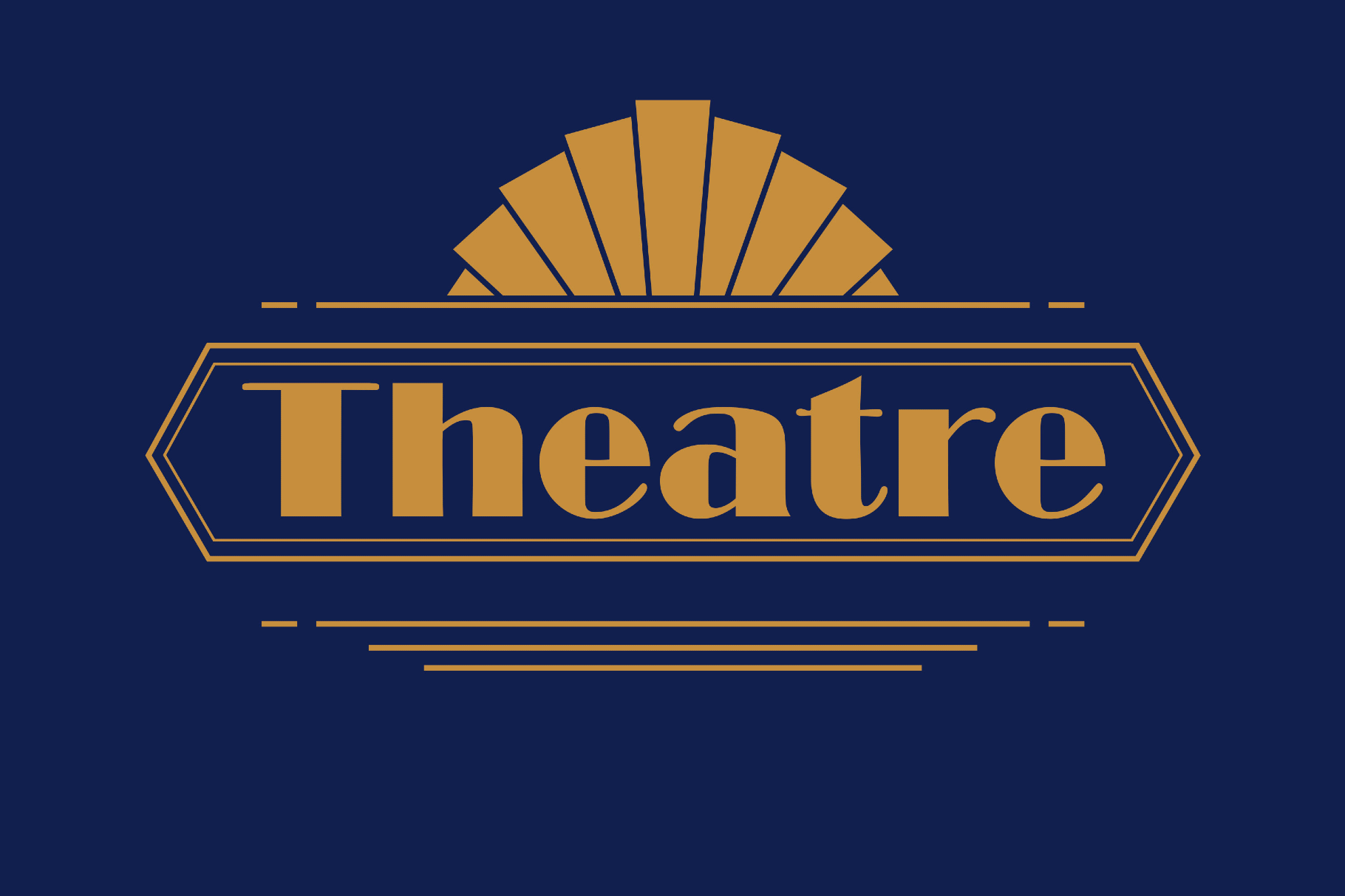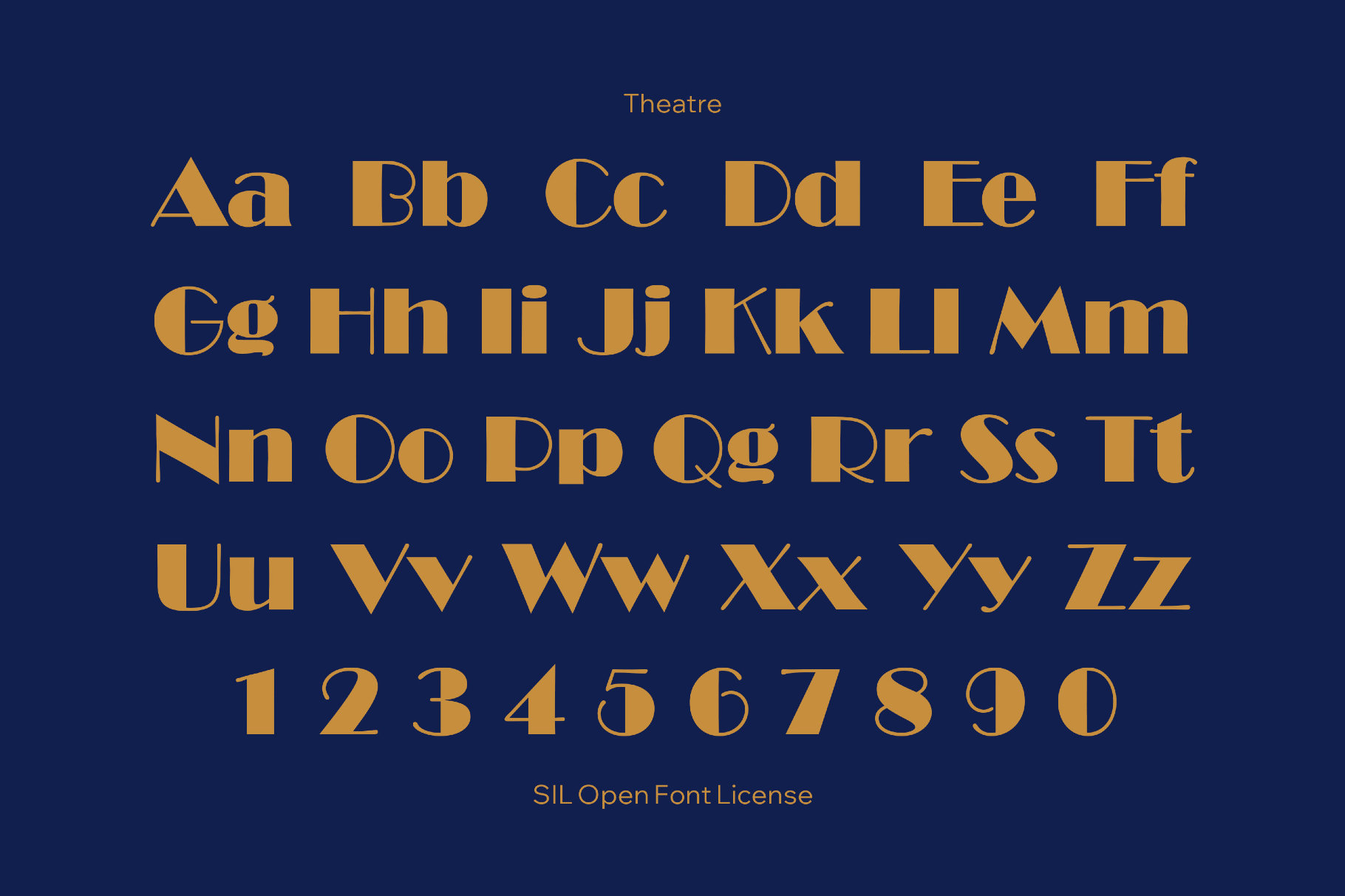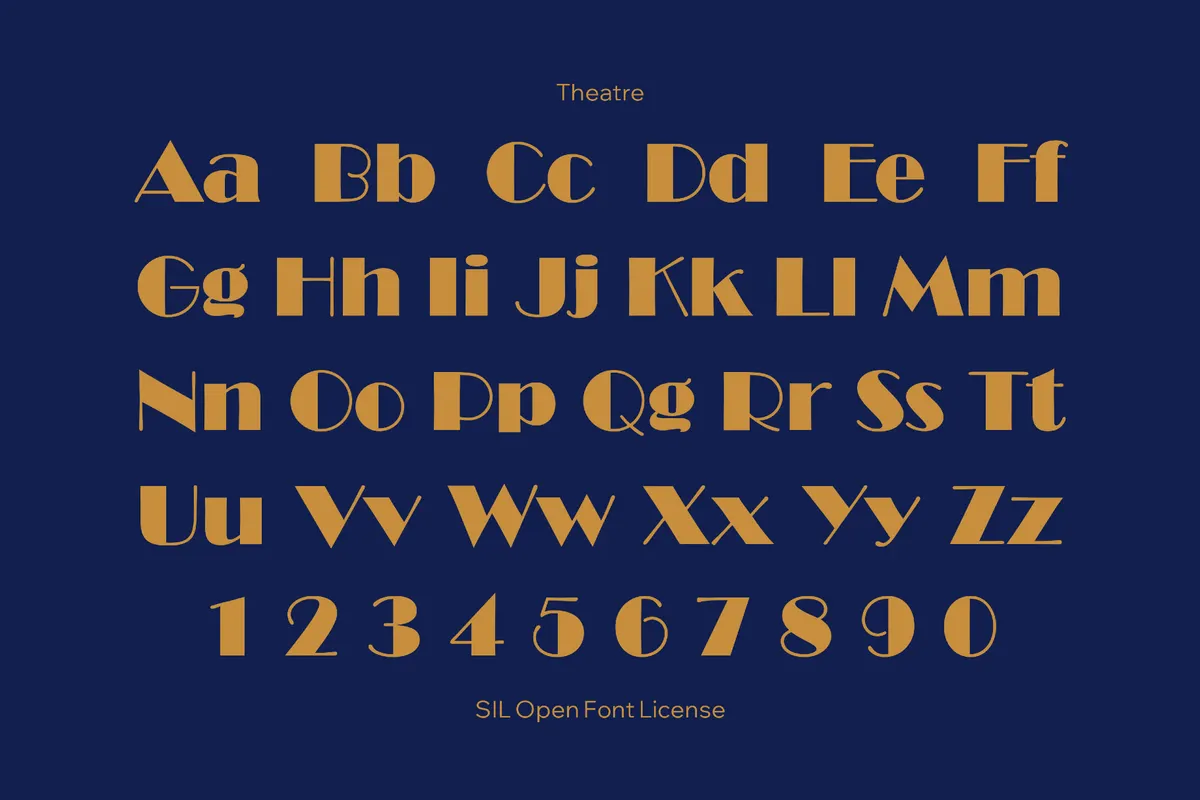
Theatre Broadway Font
QTTheatre
Theatre is a sleek Art Deco font with Broadway-marquee poise that echoes Jazz Age title cards and the sharp glamour of 1920s posters. Its showpiece character and high-contrast letterforms work well for theatre branding, playbills, venue signage, event posters, tickets, album covers, book jackets, editorial headlines, and social media graphics.